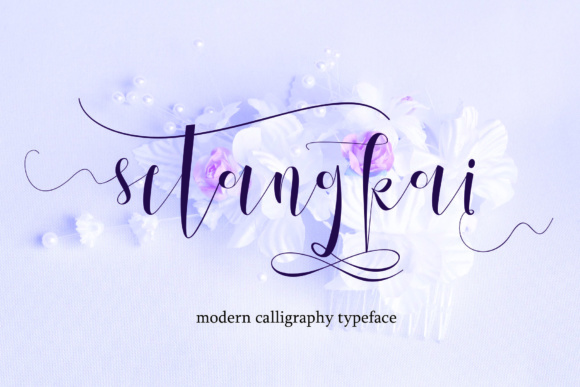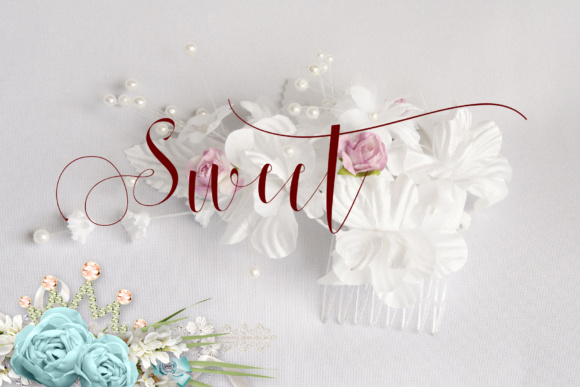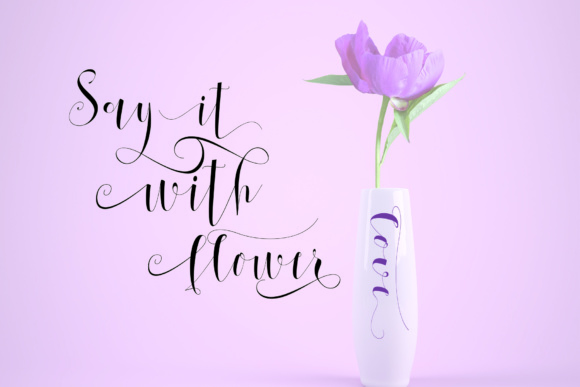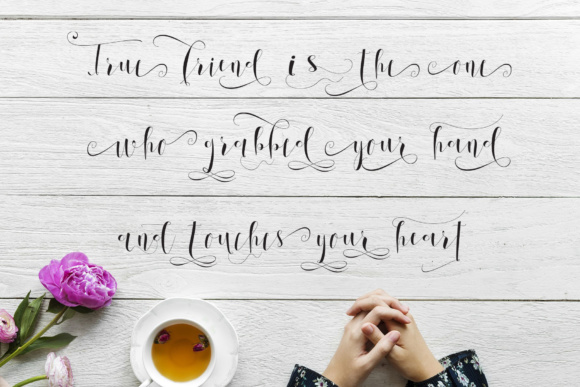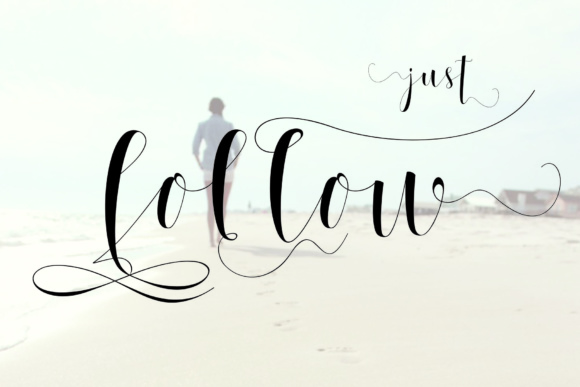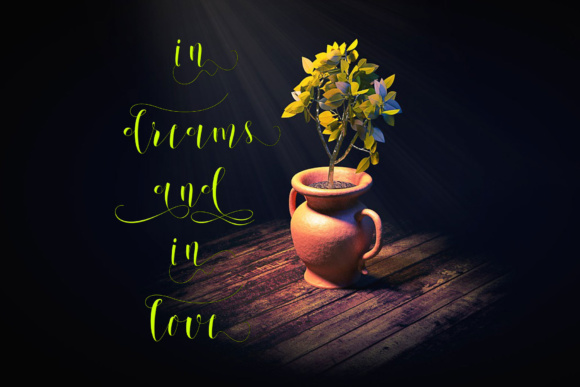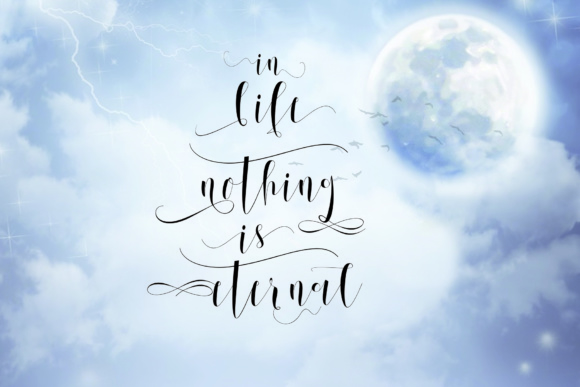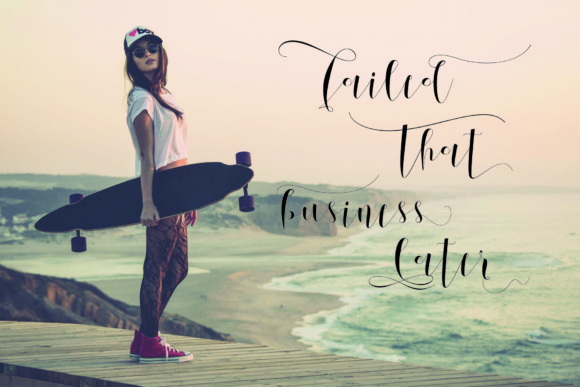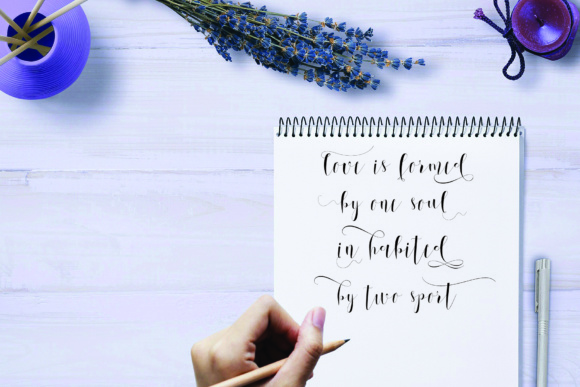
Setangkai Script Font
About Setangkai Script Font
If you are looking to add a touch of elegance to your current project do not miss Setangkai Script. You’ll get yourself a remarkable collection of a modern script font, featuring many OpenType features and multiple languages.
It’s a beautiful script with gorgeous grounds and furnished with fine lines and will give your design an authentic look.